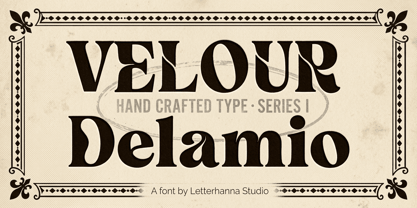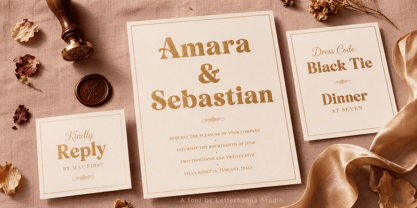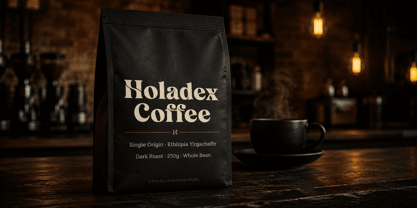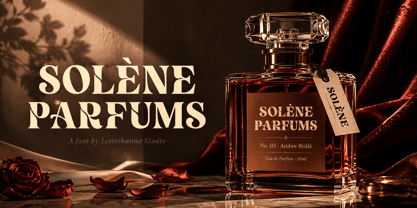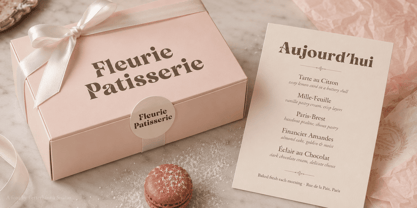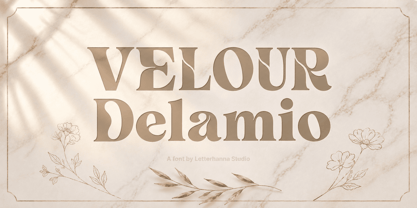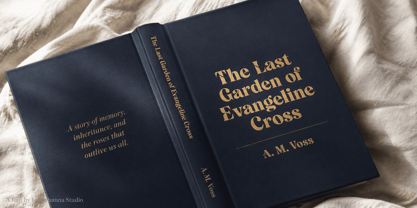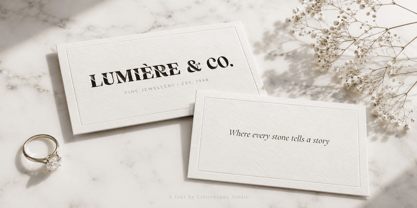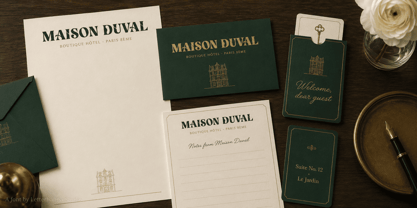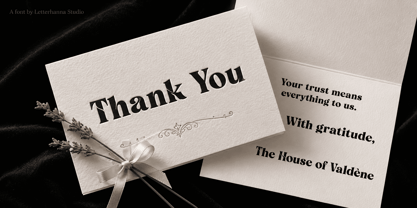
Velour Delamio
by Letterhanna Studio
The Velour Delamio Font Family was designed by Rinaldo Hasibuan and published by Letterhanna Studio. Velour Delamio contains 1 styles. More about this family
What if a font could walk into a room and command attention before a single word is read?
That's Velour Delamio.
Designed for those who refuse to settle for ordinary, Velour Delamio is a high-contrast display serif built to make every headline, logo, and title feel like a statement — not just a label. It carries the soul of classic editorial typography while wearing something far more daring: thick strokes that anchor, thin strokes that breathe, and serifs that finish every letter like a perfectly tailored suit.
The story behind Velour Delamio begins with a simple frustration. Too many display fonts exist in the space between "generic" and "overused." Designers scrolling through font libraries were looking for something that felt luxurious without being cold, bold without being loud, classic without being dated. Velour Delamio was built as the answer to that gap — a typeface that carries editorial authority and boutique warmth in equal measure.
Rooted in the Didone tradition but freed from its rigidity, Velour Delamio draws inspiration from the golden age of print: fashion mastheads, luxury packaging, and the kind of typesetting that made people stop and stare before they even processed the message. Every curve was considered. Every ink trap was placed with intention. Every letterform was drawn to feel both timeless and unmistakably fresh.
Whether you're branding a high-end product, designing a wedding suite, building a luxury editorial layout, or creating a logo that needs to last decades — Velour Delamio gives your work the presence it deserves.
This isn't just a font. It's the difference between text and identity.
Designers: Rinaldo Hasibuan
Foundry: Letterhanna Studio